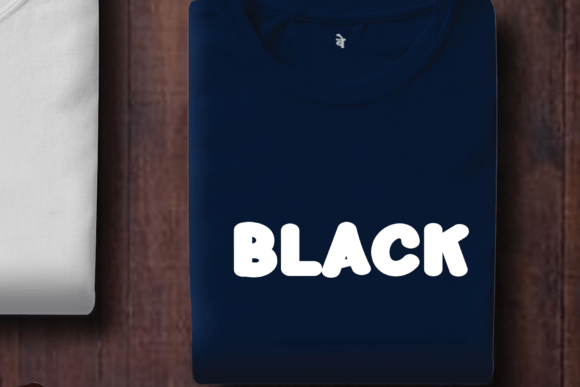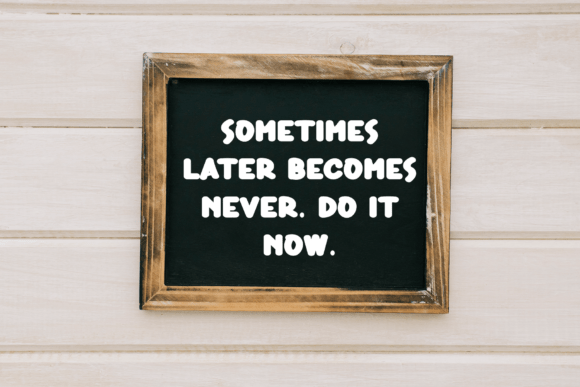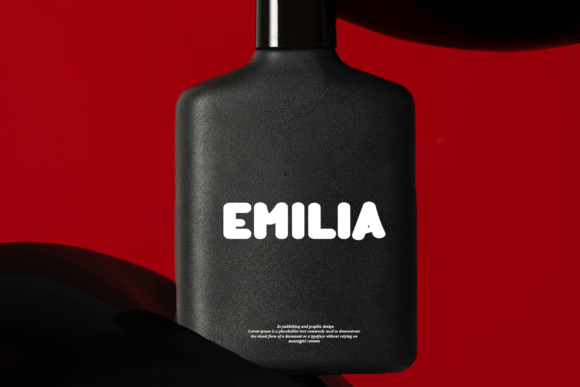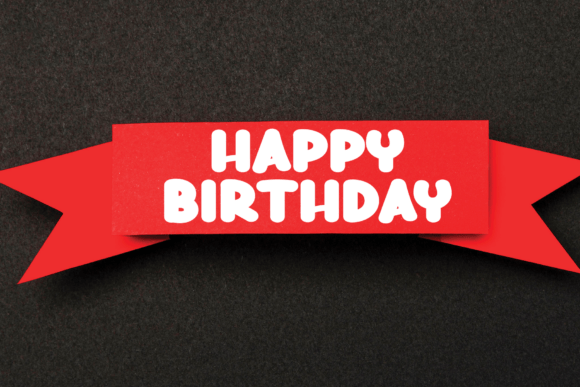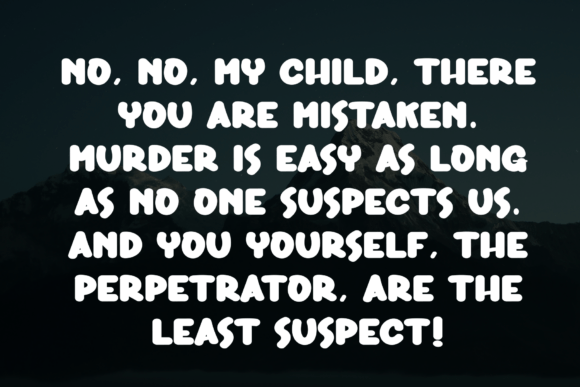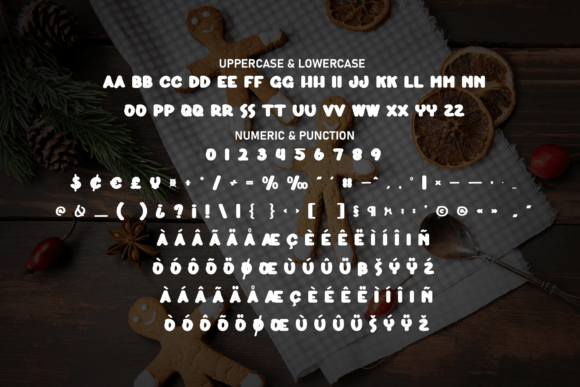
Ginger Bread Font: The Ultimate Holiday Display Font
Are you looking for a font that captures the warmth and playfulness of the holiday season? Look no further than the Ginger Bread Font, a thick, ultra-bold display font that’s perfect for festive holiday packaging, children’s winter apparel, bakery branding, and cheerful seasonal event posters.
A Playful Style Font
Described as a playful style font, Ginger Bread features soft, rounded letterforms with almost no internal counters, creating a massive and friendly visual presence. The characters appear “puffy” or inflated, mimicking the look of rising dough or iced cookies. This unique design makes it an excellent choice for designers and crafters looking to add a touch of whimsy to their holiday projects.
Inspired by Holiday Baking
The Ginger Bread Font is inspired by the warm and doughy essence of holiday baking. The font’s design is reminiscent of freshly baked gingerbread cookies, with soft, rounded edges and a puffy appearance that makes you want to reach out and touch it. Whether you’re designing holiday packaging, decorations, or apparel, this font is sure to evoke the feelings of warmth and coziness associated with the holiday season.
The Ginger Bread Font is a premier choice for a variety of holiday projects, including:
- Festive holiday packaging: Add a touch of whimsy to your holiday product packaging with this playful font.
- Children’s winter apparel: Create fun and festive clothing for kids with this bold and playful font.
- Bakery branding: Perfect for bakeries and food bloggers, this font is sure to make your brand stand out.
- Cheerful seasonal event posters: Create eye-catching posters for holiday events and markets with this fun and playful font.
Key Features of the Ginger Bread Font
The Ginger Bread Font has several key features that make it an excellent choice for holiday projects:
- Thick, ultra-bold design: Perfect for creating eye-catching headlines and titles.
- Soft, rounded letterforms: Gives the font a playful and whimsical feel.
- Almost no internal counters: Creates a massive and friendly visual presence.
- Puffy or inflated appearance: Mimics the look of rising dough or iced cookies.
Tips for Using the Ginger Bread Font
Here are some tips for using the Ginger Bread Font in your holiday projects:
- Use it as a headline font: The Ginger Bread Font is perfect for creating eye-catching headlines and titles.
- Pair it with a simple font: Balance out the boldness of the Ginger Bread Font by pairing it with a simple, easy-to-read font.
- Experiment with colors: The Ginger Bread Font looks great in a variety of colors, from traditional holiday colors like red and green to more modern colors like pastel pink and blue.
- Use it in combination with holiday graphics: The Ginger Bread Font pairs perfectly with holiday graphics like snowflakes, holly, and gingerbread men.
The Ginger Bread Font is a unique and playful display font that’s perfect for adding a touch of whimsy to your holiday projects. With its soft, rounded letterforms and puffy appearance, it’s sure to evoke the feelings of warmth and coziness associated with the holiday season. Whether you’re a designer or crafter, this font is a must-have for any holiday project.